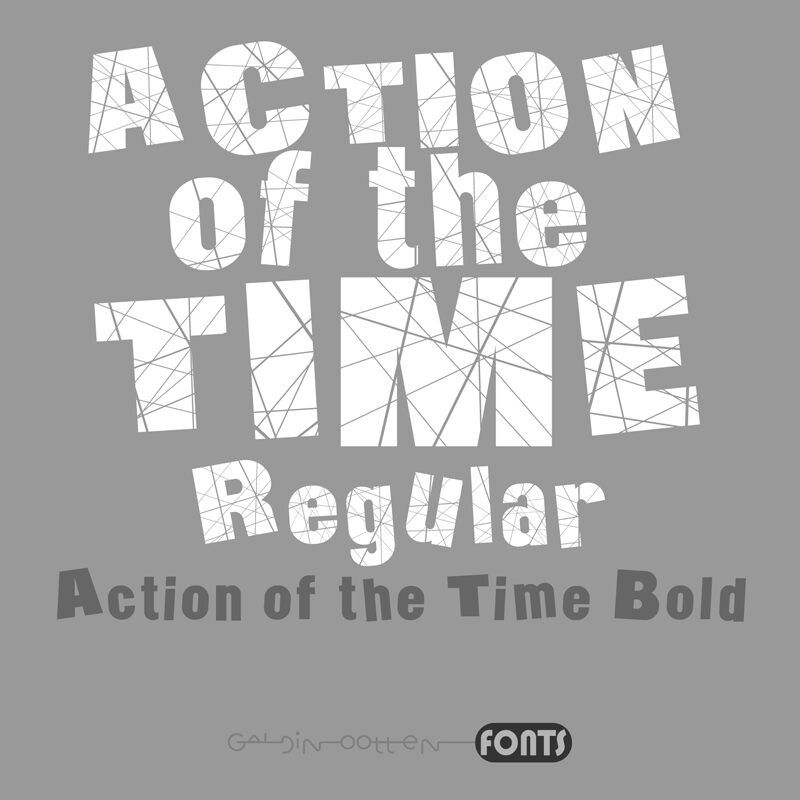
Action of the Time
Action of the Time font by Galdino Otten Fonts captures a raw and edgy vibe with its bold and eroded display style. Reflecting elements from the 20th-century punk and DIY culture, this font exhibits a rough texture and distressed appearance. A grunge aesthetic is prevalent throughout, giving your texts an unconventional look.
This free font evokes a unique sense of urgency suitable for rebellious fashion branding, music album covers, band logos, event posters, book covers, social media posts, website headers, blog graphics designs…